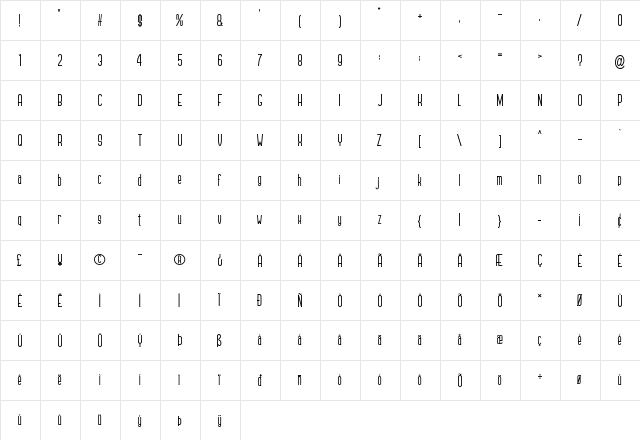
GENNARO Regular
Design Context for GENNARO Typeface
GENNARO is a composed and adaptable typeface that performs quietly and consistently across a wide range of design contexts.